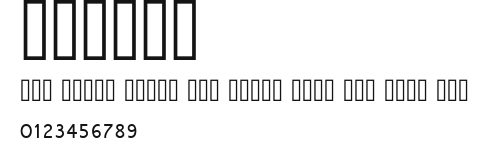
• Font Name: Shruti
• Designer: Raghunath Joshi (Type Director), Santosh Kshirsagar
• Description: Shruti is an OpenType font for the Indic script - Gujarati. It is based on Unicode, contains TrueType outlines and has been designed for use as a UI font.
Shruti.ttf is a modern, elegant sans-serif font designed for ultimate readability and visual harmony. Perfect for branding, headlines, web design, and print materials.